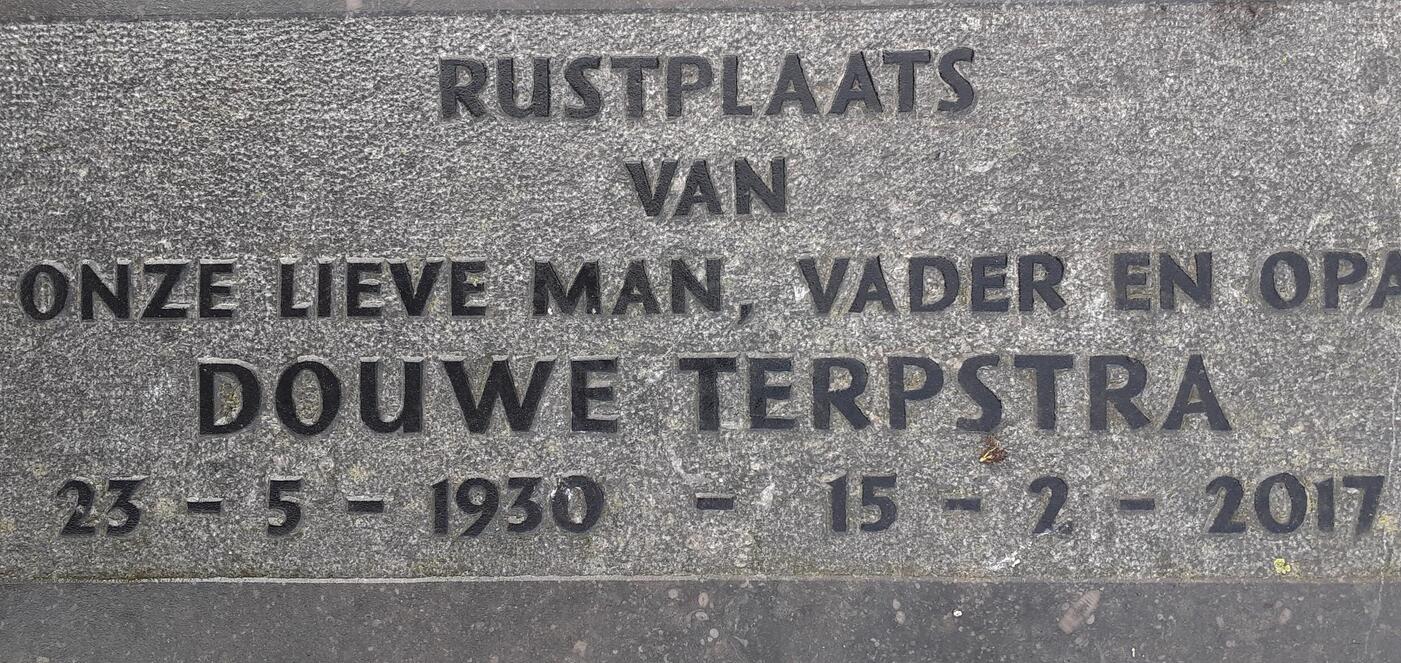
Identify font on Dutch gravestone
I work for a stonemasonry firm called Ropa, and we make gravestones, among other things. Now I need to add an addition to an existing gravestone, but I don't recognize the font, although it does strike me as a modern and common font. Can anyone identify which font it is? Due to the paint, it is a bit smudged here and there. Maybe the numbers are even another font. I'm puzzled, how about you?
Its close, but honestly I believe it is a more common font. Lapidary is a paid font.